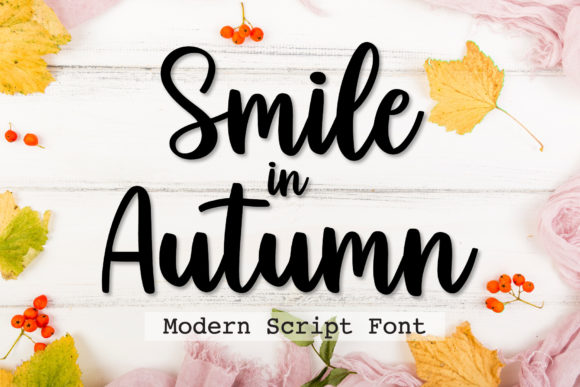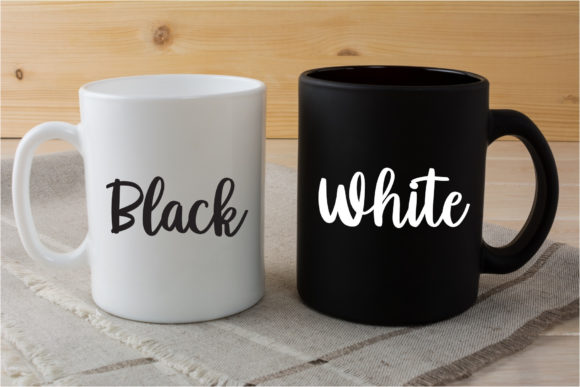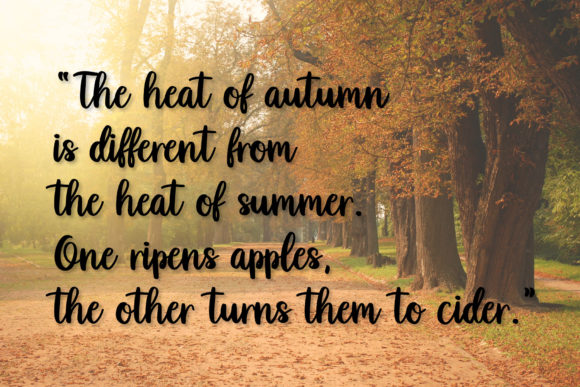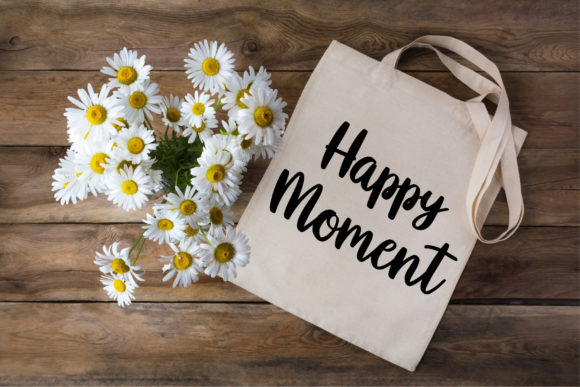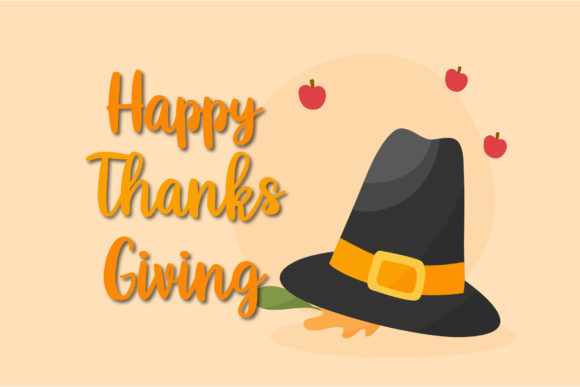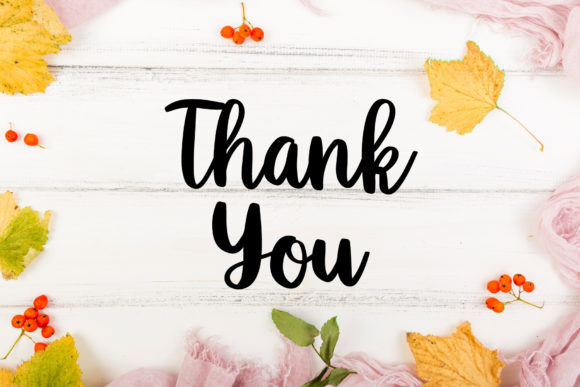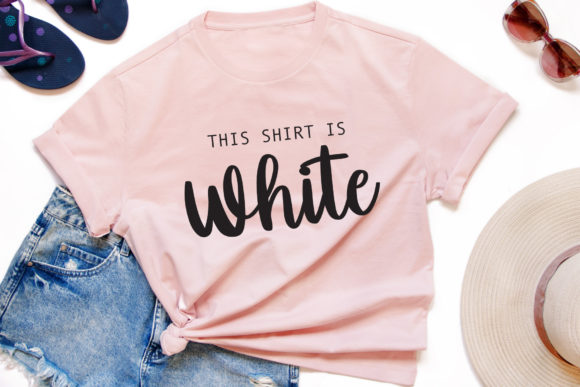
Smile in Autumn Font
About Smile in Autumn Font
Smile In Autumn is a friendly handwritten font, featuring the perfect amount of trendiness. Whether you’re using it for crafting, digital designing, presentations or greeting cards making, it’s perfect!